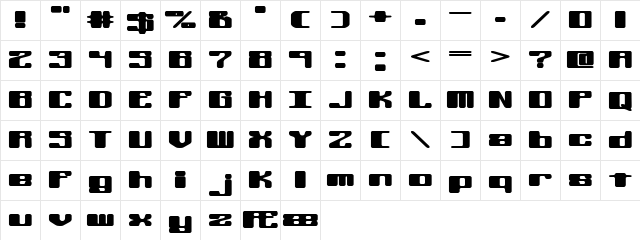
Off Kilter L (BRK) Regular
Design Context for Off Kilter L (BRK) Typeface
Off Kilter L (BRK) is a composed and adaptable typeface that performs quietly and consistently across a wide range of design contexts.